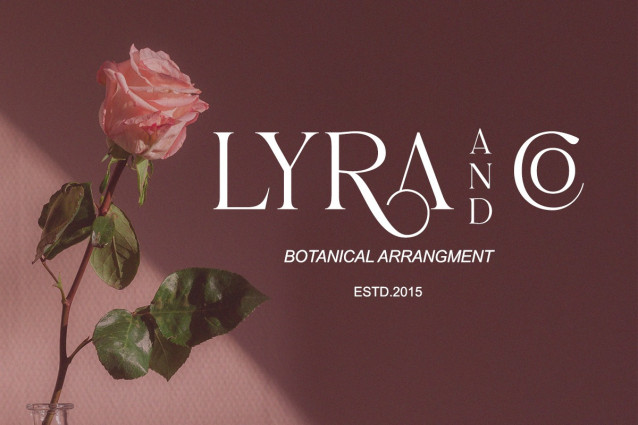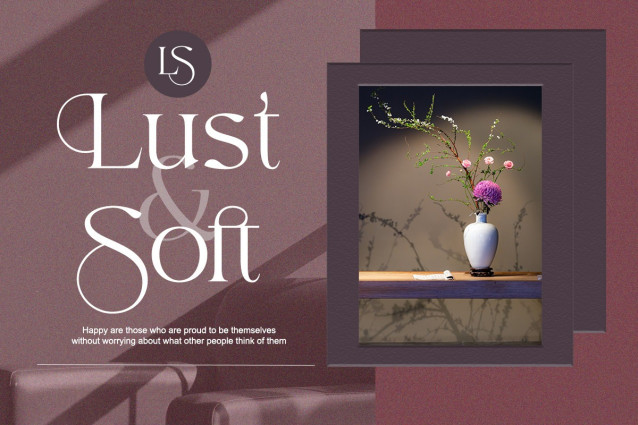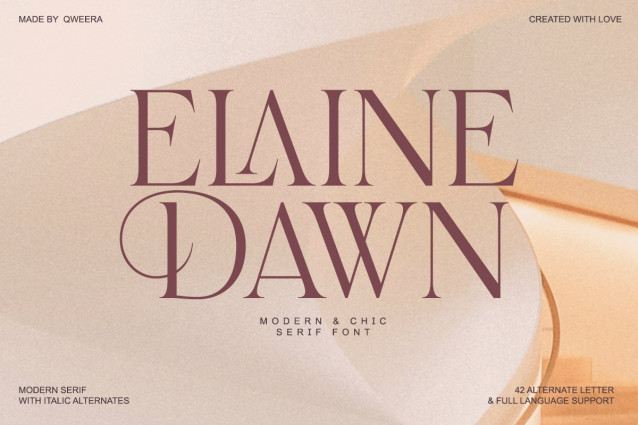
Elaine Dawn Font
Elaine Dawn Font – a modern luxury serif with refined contrast, sculpted elegance, and timeless sophistication.Elaine Dawn blends contemporary curves with classic structure, delivering a clean yet opulent typographic presence. Its luxurious proportions and subtle details are built for designers who demand clarity, confidence, and premium aesthetics.
Perfectly suited for high-end branding, fashion identity, and visual storytelling.
From designer logos and elegant packaging to editorial layouts and beauty campaigns, Elaine Dawn brings class and consistency into every visual composition.